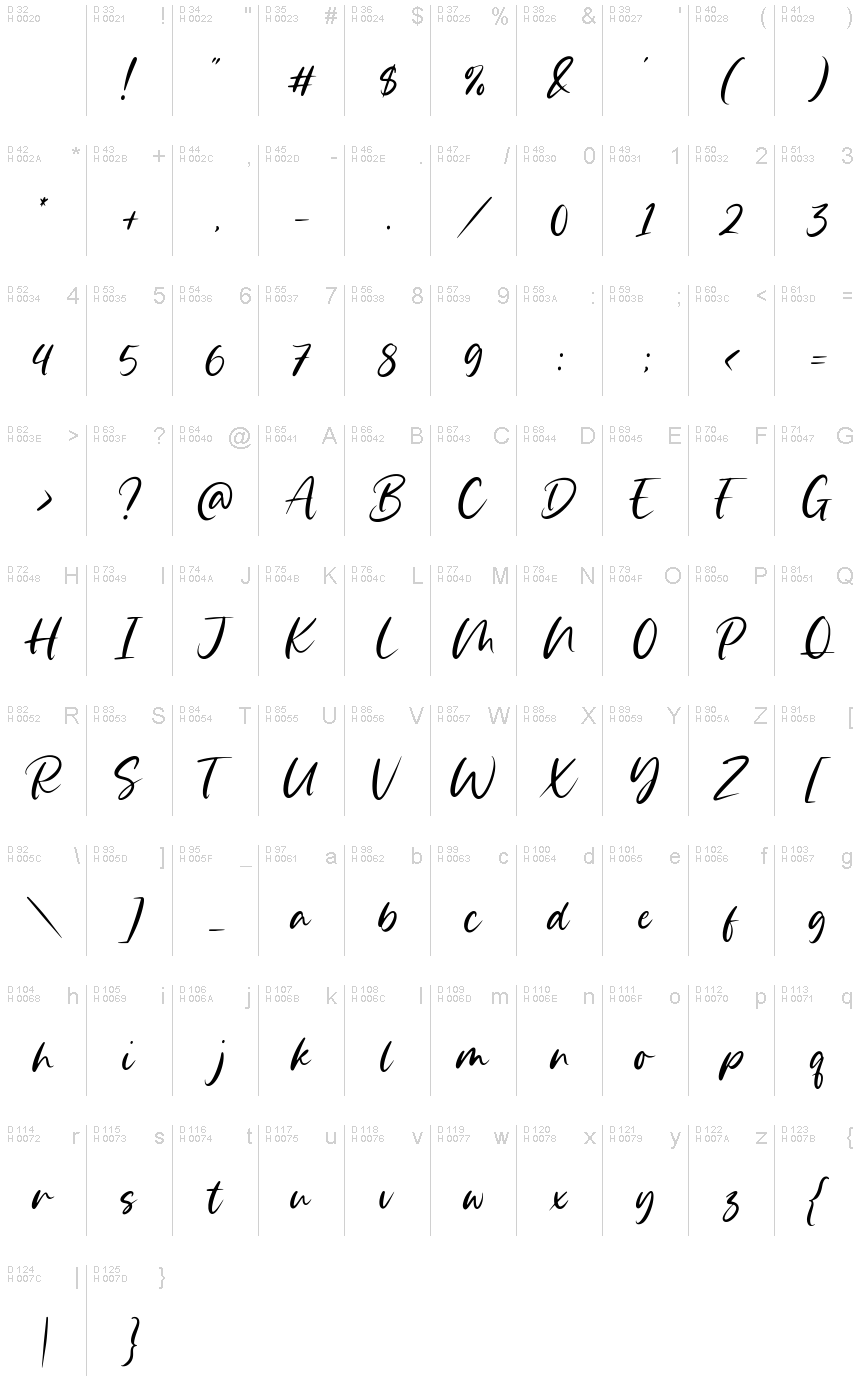
Brother Time
Brother Time, crafted by Timur Type, is a handwritten font that exudes personality and charm. With its fluid strokes and organic feel, this font captures the essence of personal touch and warmth often absent in digital communication. Its gentle curves and variable stroke thickness evoke the elegance of traditional calligraphy while maintaining a contemporary vibe.
Ideal for invitations, branding, and editorial design where a touch of human presence is desired, Brother Time lends an intimate and bespoke character to any project. It resonates with designs that call for authenticity, making it perfect for those wishing to convey artistry and individuality.